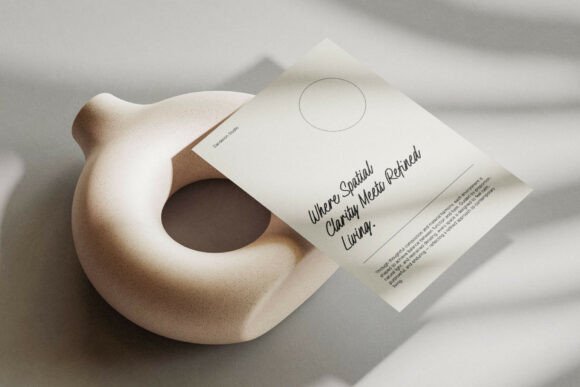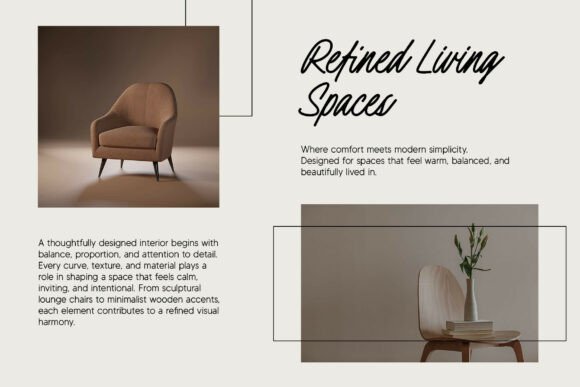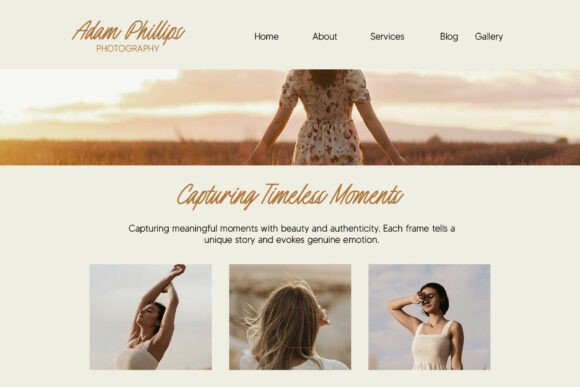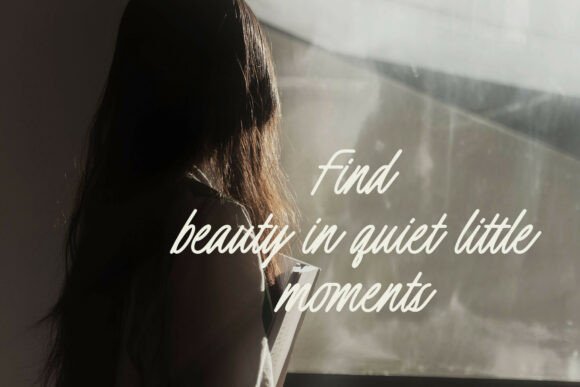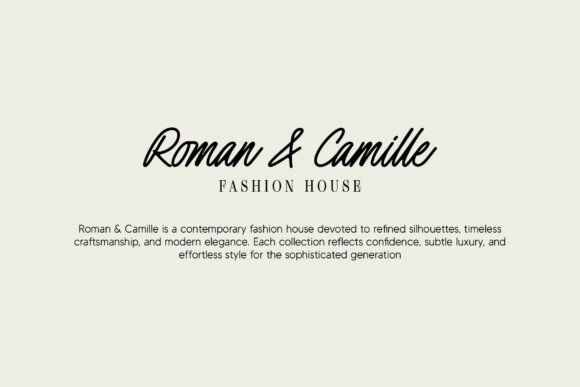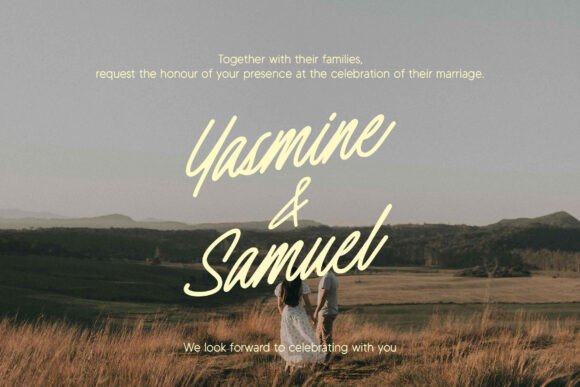
Introduction to Quiet Sunday Reflection Font
Quiet Sunday Reflection is a smooth monoline script font designed with consistent stroke weight and balanced letterforms.
It features a natural handwritten rhythm while maintaining clarity and structure, making it suitable for both display and practical design use The letter connections are carefully crafted to ensure readability and smooth flow across words.
Key Features of Quiet Sunday Reflection Font